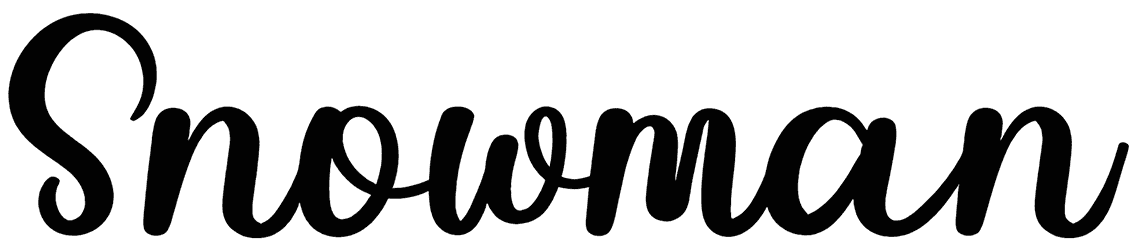
Snowman Font
Would you like to create a realistic manuscript design that can satisfy any taste? This script font, with its nice and matchable style, can give this kind of form to your words. Snowman font with an almost full cover of characters is able to be placed on any short or long projects, namely novels, posters, cards, logos, and the like.